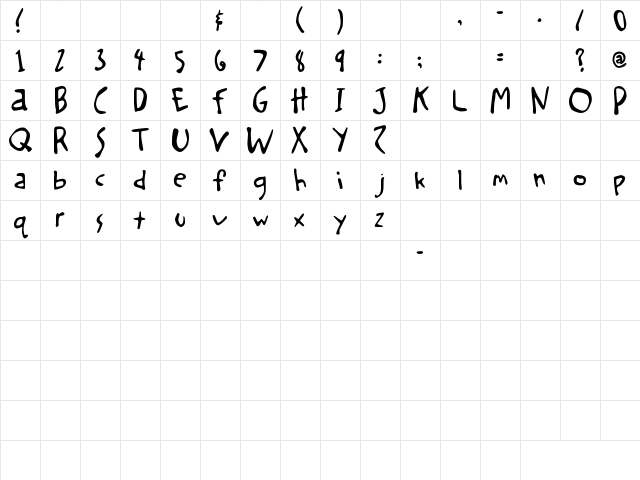
SBC Greetings Regular
Design Context for SBC Greetings Typeface
SBC Greetings is a composed and adaptable typeface that performs quietly and consistently across a wide range of design contexts.